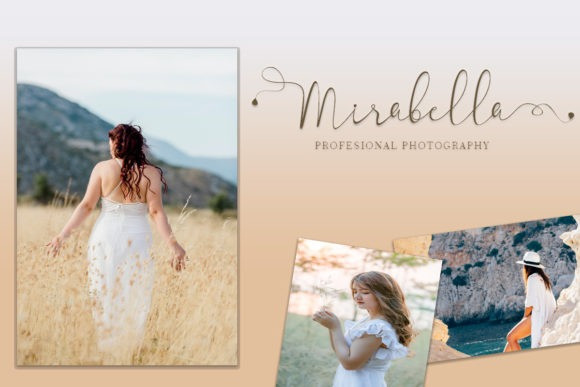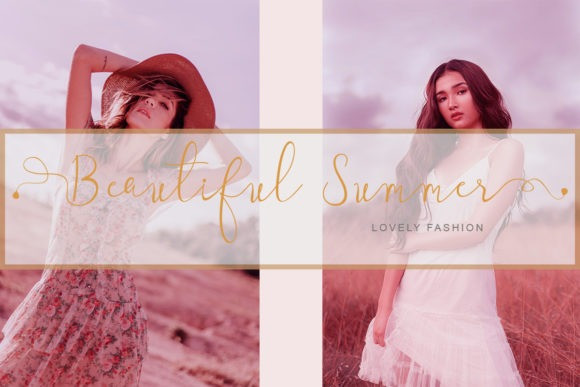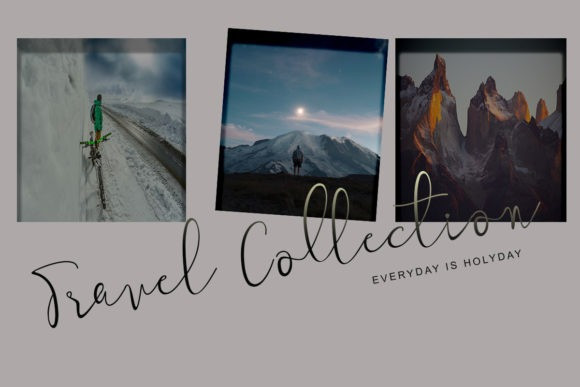
Maretha Calligraphy Font
Maretha Calligraphy Font is stunning and enchanting, but also incredibly modern. This versatile script font has a wide range of applications ranging from greeting cards to headlines and is guaranteed to add a romantic feel to your next project. This typeface is designed and shared by yogaletter6. Fall in love with its authentic feel and use it to create gorgeous wedding invitations, beautiful stationary art, eye-catching social media posts, and cute greeting cards.
This font is PUA encoded which means you can access all of the cute glyphs and swashes with ease! It also features a wealth of special features including alternate glyphs and ligatures.